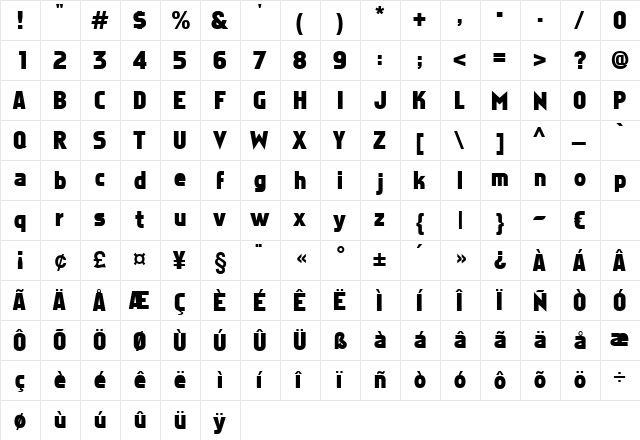
Narbonne Regular
Design Context for Narbonne Typeface
Narbonne takes a measured approach to typography — its balanced proportions and neutral character make it a reliable workhorse for both digital and print work.